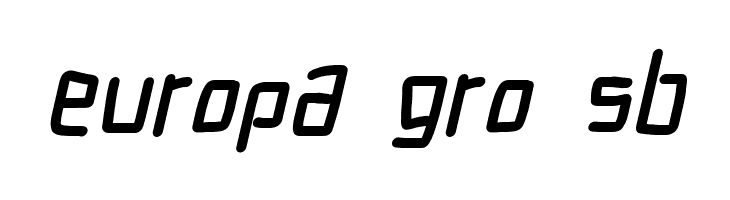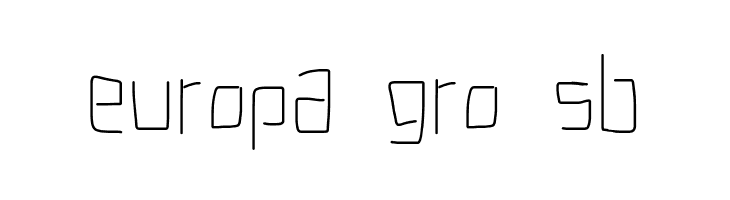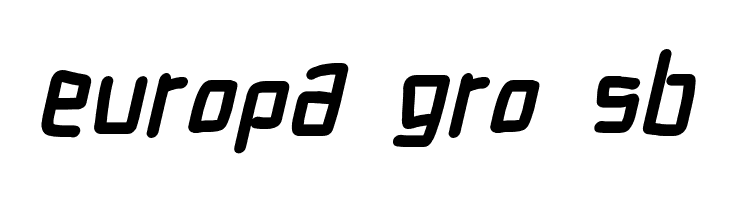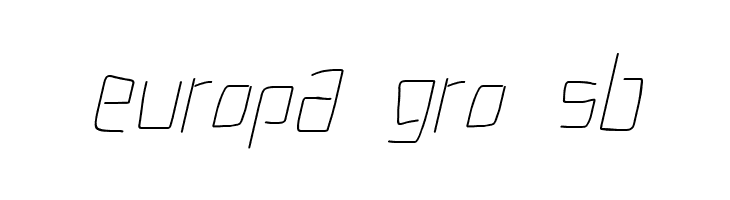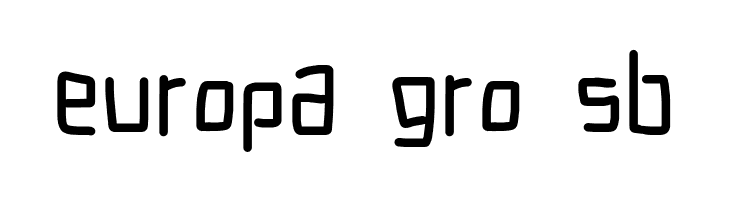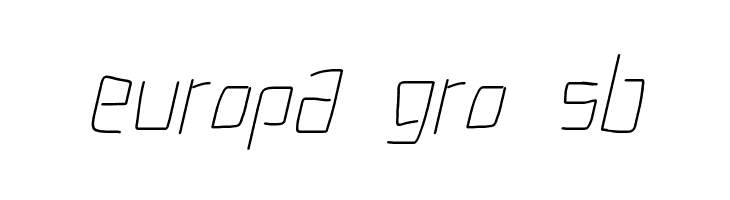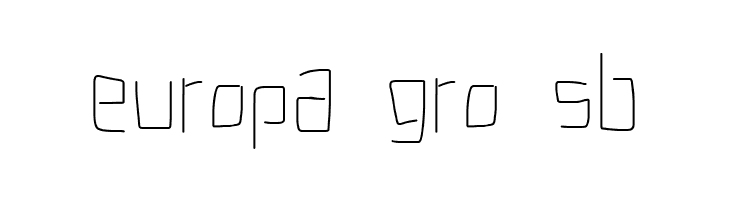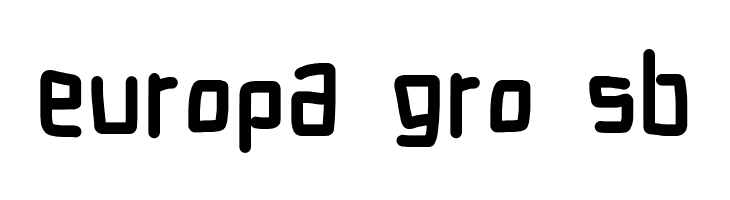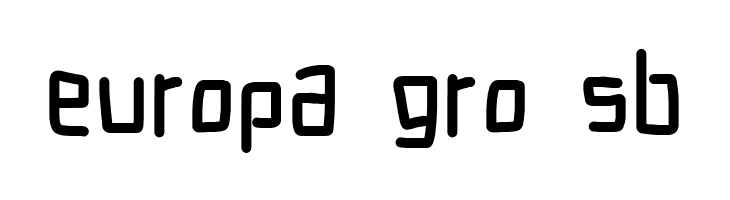
• Electronic ExtraBlack
A bold, geometric font with a modern, digital aesthetic.
• Electronic ExtraBlack Italic
A bold, italicized font with a modern, geometric style and tight spacing.
• Electronic ExtraBold
A bold, geometric font with a modern, digital aesthetic.
• Electronic ExtraBold Italic
A bold, italicized font with a modern, geometric style.
• Electronic ExtraHeavy
A bold, extra-heavy font with a modern, digital aesthetic and rounded geometric shapes.
• Electronic ExtraHeavy Italic
A bold, italic font with a modern, dynamic style and rounded edges.
• Electronic ExtraLight
A minimalist, geometric font with thin lines and a modern, digital aesthetic.
• Electronic ExtraLight Italic
A sleek, modern font with an electronic, extra-light, italicized style.
• Electronic ExtraThin
A modern, ultra-thin font with a geometric, electronic style.
• Electronic ExtraThin Italic
A futuristic, extra-thin italic font with angular, geometric characters.